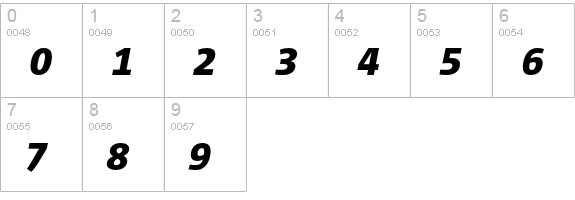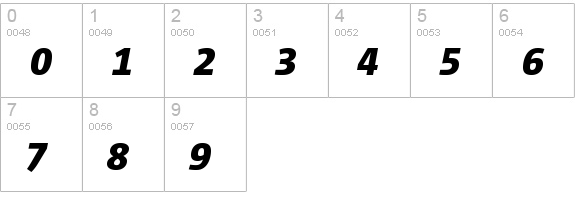
Corpid Caps Heavy Italic Font Details
Corpid Caps Heavy Italic is a heavy, high-impact, italic variant in the Corpid typeface family \xE2\x80\x94 well suited to high-impact headlines, posters, and display advertising.
Corpid Caps Heavy Italic font is a bold and dynamic typeface that exudes strength and modernity. With its heavy weight and italic styling, this font is perfect for creating eye-catching headlines, logos, and designs that demand attention. The sleek, contemporary letterforms of Corpid Caps Heavy Italic make it a versatile choice for a wide range of projects, from branding to editorial design. What's even better is that Corpid Caps Heavy Italic font is available for free download at FontsMarket.com. This means that you can easily access this striking typeface and incorporate it into your design work without any cost. Don't miss out on the opportunity to enhance your projects with the bold and impactful look of Corpid Caps Heavy Italic font – download it for free today at FontsMarket.com!